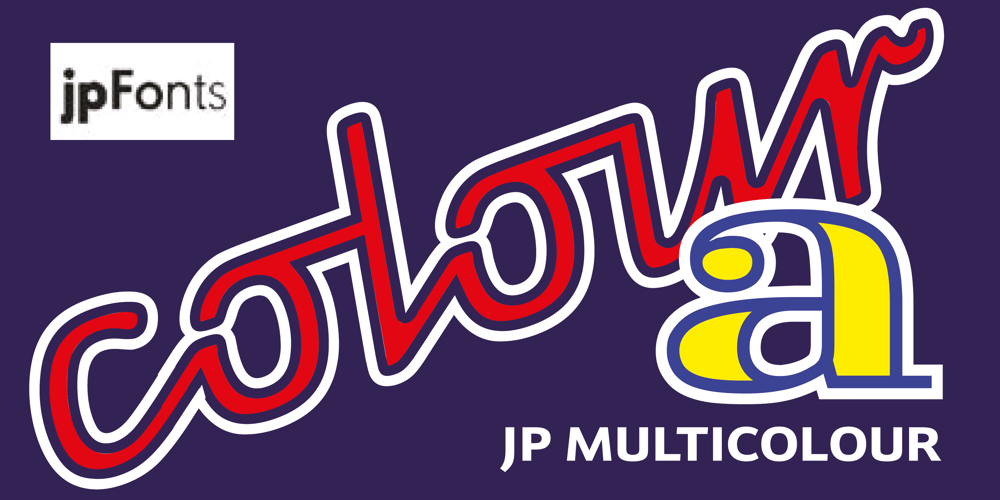
JP MultiColour Font Family was designed by Volker Schnebel and published by jpFonts. JP MultiColour contains 25 styles and family package options. Multicolored Fonts Many years ago, when Xerox Corporation still had its own font department, I came to Los Angeles in 1985 to train the IKARUS program. One day Bill Kienzel, head of the Xerox font department at the time, said we should go to the Hollywood Hills together; he knew people there who were experimenting with multicolored fonts. After a little wandering through the winding streets of the many hills, we reached a somewhat overgrown, simple family house standing under trees. A group of very inspired designers were waiting for us there. They immediately showed us the works they created using photomechanical tricks. They were fascinating. The American colors and the whole look seemed noble and enchanting. The problem was that this process was very difficult to implement and required a lot of effort on individual letters. They dreamed of a colored font that could be used for normal typesetting. We thought back and forth about how to save the individually colored letters in a common font, but soon gave up because we didn’t see a technical option. So this idea and the memory of the time in Hollywood lay dormant in the back of my mind for many years, until at the beginning of this year 2023 I received an order to produce an outline typeface and the story came back to me. Suddenly I knew how to solve the problem from back then: if only the areas that should have the same color in all letters were saved in their own separate fonts, they could be colored independently of each other and later placed on top of each other. I implemented this in the 5 fonts that are now available with the 3 variants “Outside”, “Middle” and “Inside”. Together with the background, 4 colors can be combined with each other. This method works in text programs such as Word or InDesign. In Photoshop or Illustrator, the individual surfaces can also be colored by converting them into paths if the additional “Complete” variants (which contain all 3 contours) are used. There is also a “Basic” variant that can be used to achieve special effects such as overlay, bleed, etc. The first 5 fonts in this series are all based on the principle of contouring. Anyone who claims that you don’t need any special fonts because they can be created automatically from any font using common programs is wrong or is only telling only half the truth. Anyone who has ever dealt with this knows that many individual adjustments to the design are necessary after contouring. This has happened in the 5 fonts that are now available and have very different styles. The dream from back then has come true. The user can set any text, long or short, in multiple colors, freely design the color scheme and apply all the usual typographic settings.Volker Schnebel, November 2023